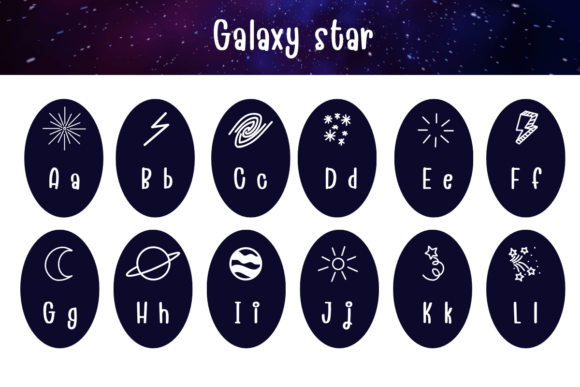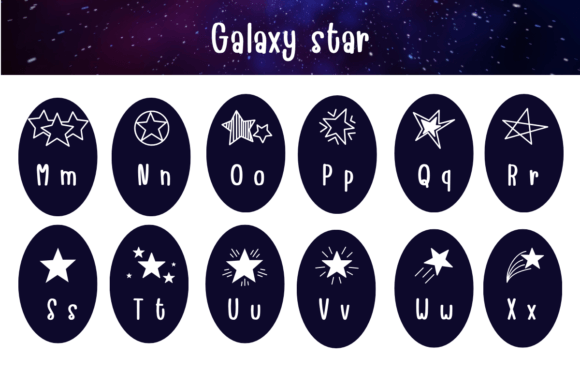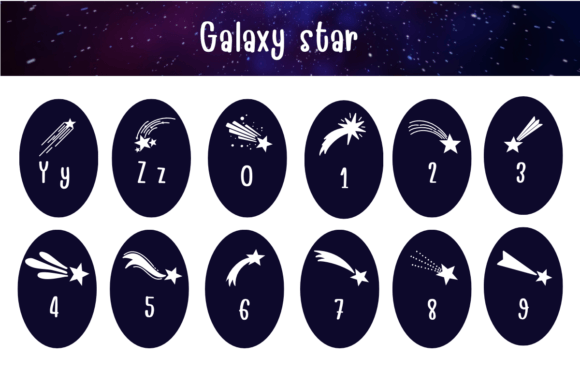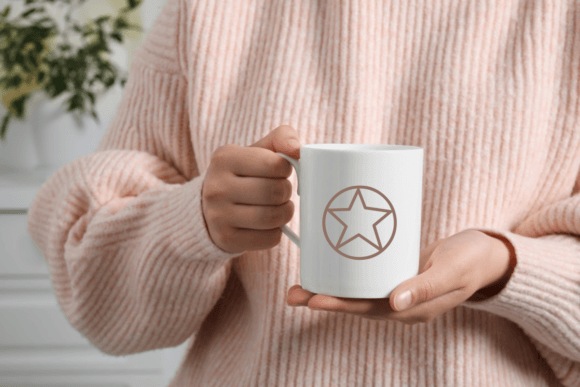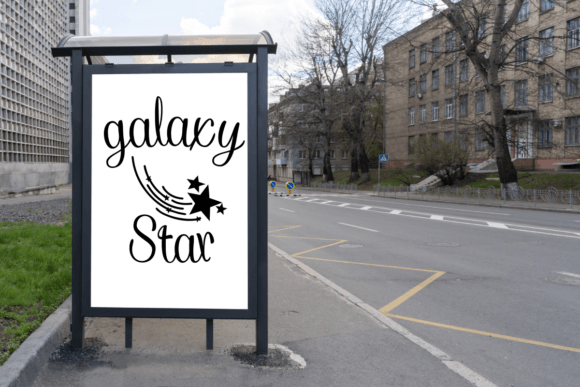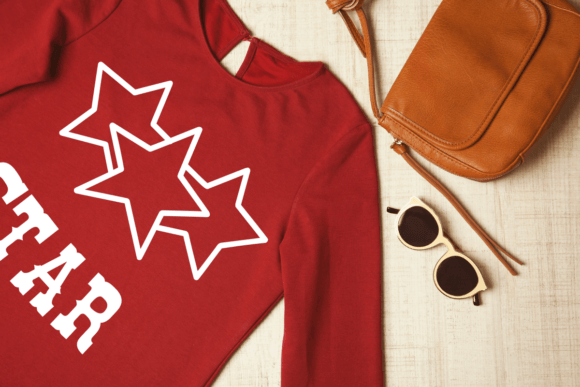
Sparkling Creativity: Unveiling the Galaxy Star Font
Who hasn’t felt a rush of inspiration while stargazing on a clear night, watching the stars twinkle like diamonds against the vast expanse of the universe? As designers, we often seek that same spark of magic to bring our projects to life. And what better way to capture that essence than with the enchanting Galaxy Star Font?
This delightful dingbats typeface is a treasure trove of celestial symbols and cosmic elements, each character infused with whimsical charm. Whether you’re working on a space-themed project or simply want to add a touch of playfulness to your designs, the Galaxy Star Font is the perfect companion. Its stellar beauty and enchantment make it a valuable addition to any designer’s toolkit, elevating your creations to new heights of wonder and awe.
Galaxy Star Font Key Features
- Unique Characteristics: The font features a unique, hand-drawn design with a celestial theme, complete with stars, galaxies, and other cosmic elements, adding a touch of magic to any text.
Galaxy Star Font Review
I recently had the chance to work with the Galaxy Star Font, and I must say, it’s a mixed bag. Let’s start with the positives:
- ✨ The font’s unique design and aesthetic make it perfect for projects that need a touch of celestial magic. It’s perfect for sci-fi themed projects or anything that needs a sense of wonder.
- ✨ The font is highly customizable, allowing users to adjust the size, color, and style to fit their needs.
- ✨ The font is available in a range of weights, making it suitable for both body text and headlines.
However, there are some limitations that I think are worth mentioning:
- ⚠️ The font can be quite challenging to read at smaller sizes, which may make it less suitable for projects that require a lot of body text.
- ⚠️ The font’s unique design can also make it difficult to pair with other fonts, which may limit its versatility.
- ⚠️ The font’s customization options can be overwhelming for beginners, which may make it difficult for those who are new to font design to use effectively.
Overall, I think the Galaxy Star Font is a great choice for projects that need a touch of magic and wonder. However, it’s not a one-size-fits-all solution, and users should be aware of its limitations before choosing it for their project.
Galaxy Star Font is ideal for:
- Creating futuristic and sci-fi themed designs.
- Adding a touch of magic and wonder to your designs.
- Creating eye-catching titles and headings.